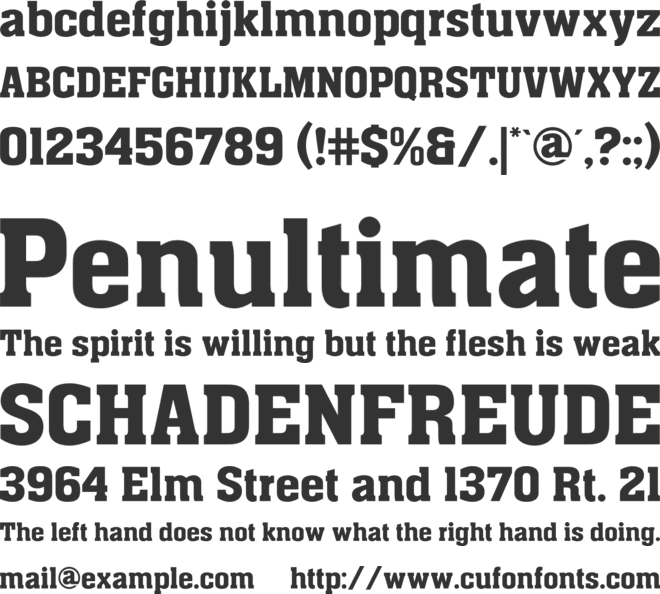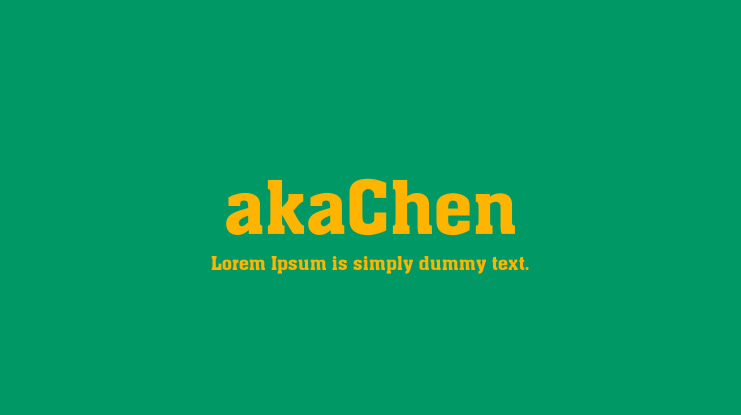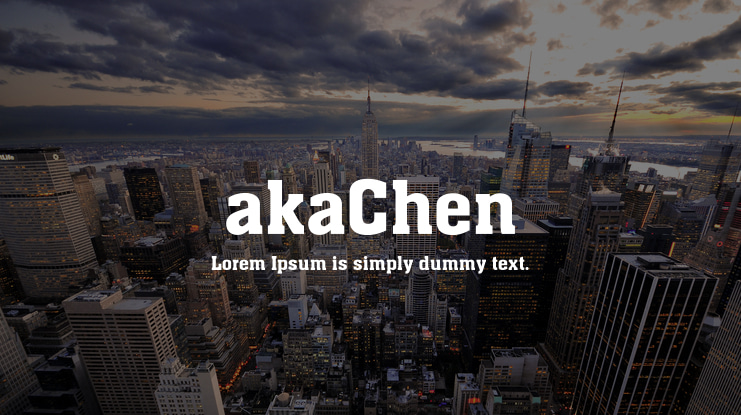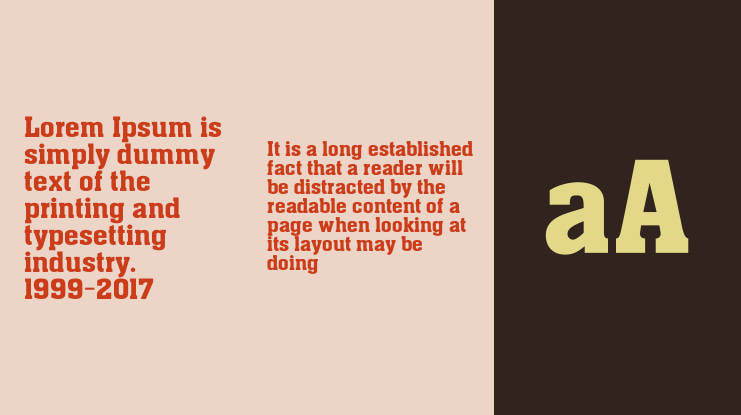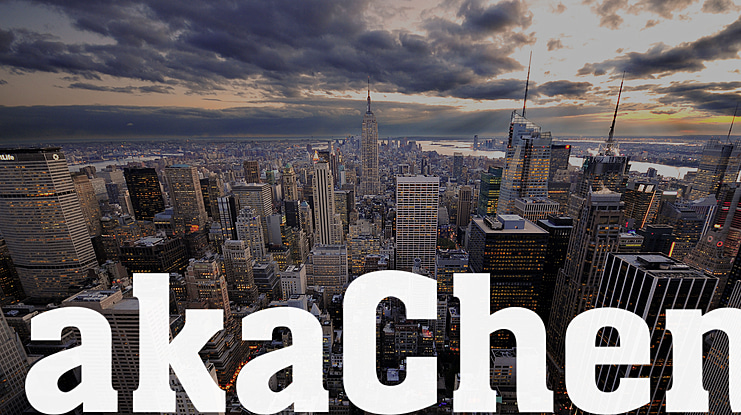
akaChen Font
There are several "free" fonts based on this famous typeface floating around the Internet. They fall into 2 categories: poor quality; or renamed copy of a font from a big-name foundry. This font is a clean digitization based on my visual interpretation of the typeface.